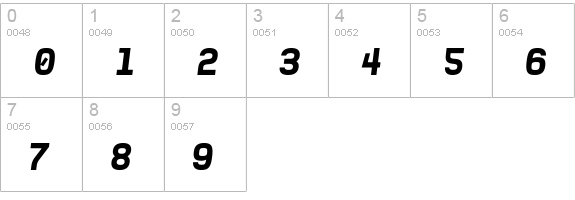
FauxCRA-BoldItalic Font Details
FauxCRA-BoldItalic is a stunning and versatile font that exudes elegance and sophistication. This bold italic typeface is perfect for making a statement in your design projects, whether it's for branding, headlines, or creative displays. The unique combination of boldness and italic style adds a touch of flair and modernity to any text. Best of all, FauxCRA-BoldItalic is available for free download at FontsMarket.com. This means you can easily access this high-quality font and use it in your projects without any cost. Don't miss out on the opportunity to enhance your designs with the striking FauxCRA-BoldItalic font today.